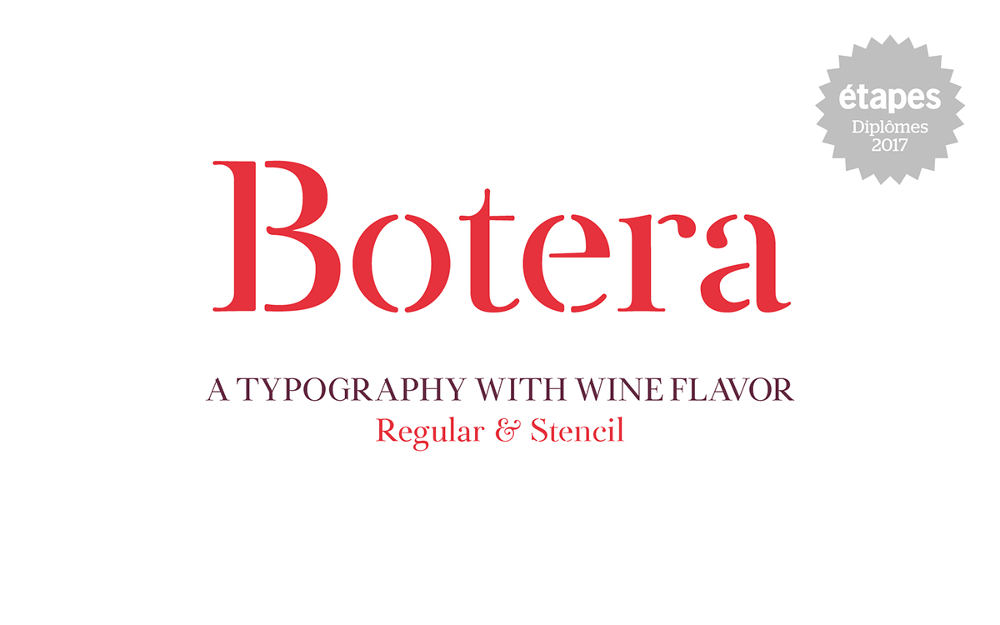
Botera Free Typeface
Botera by Javi Montoya is a Typographic Project based in the environment of Valdepeñas (Ciudad Real, Spain) and its wine heritage.
Enology and typography speak the language of finesse. Both of them understand time in the same way: the owner of qualities related with knowledge of tradition and new influences.